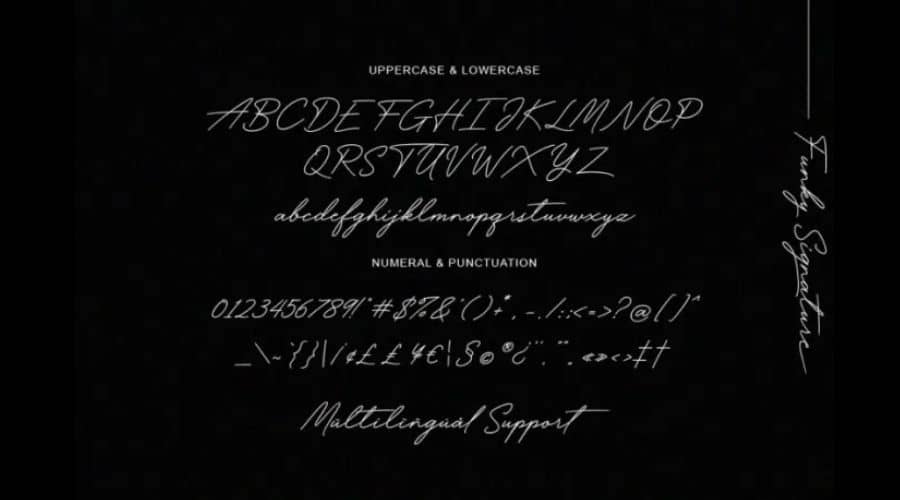
Funky Signature Font
Thank you for taking the time to look at Funky Font! It is a contemporary Script, Handwritten typeface. It appears that you are writing naturally and honestly, which provides authentication for any necessity. Ef Studio created it and shared it on July 24, 2019. Funky Signature comes with a slew of extra options that let you personalize your writing. You’ll get a complete set of uppercase and lowercase letters, multilingual punctuation, ligatures, stylish alternatives a-z, hand-drawn extras that you can mix and combine to make logos and contextual alternates that mimic the original lettering. Software that supports Opentype, such as Adobe Indesign, Adobe CS Illustrator, Adobe Photoshop CC, and Corel Draw, can access everything.
Funky Signature is an 80s-inspired handwritten signature script with a fluid flow, ideal for personal branding, red wine labels, vodka labels, packaging, stationery, invites, business cards, movie covers, and advertising.
| Designer | Ef Studio |